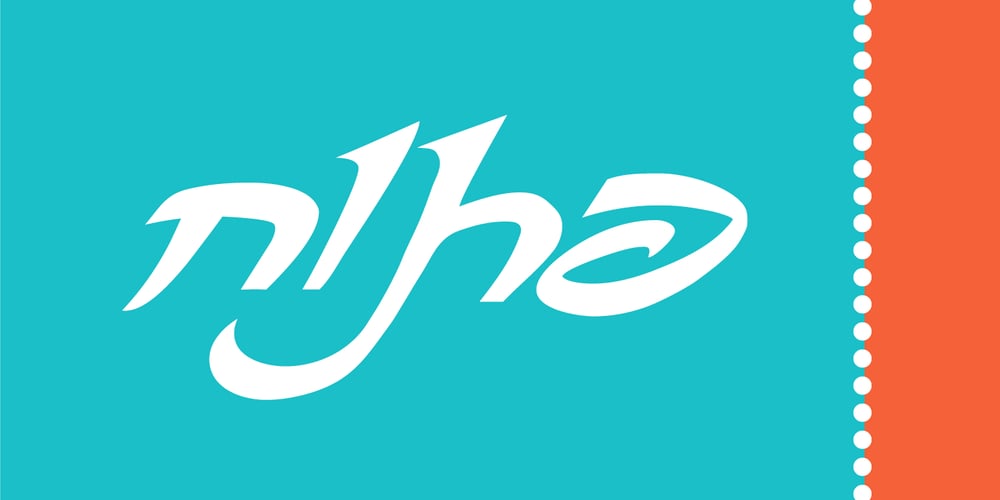
Gilo MF
Gilo MF font
Gilo MF Font Family was designed by Gad Ulman and published by Masterfont. Gilo MF contains 1 styles and family package options. Inspired by old engraving and scrolls, this font is unique by its flow and contrast, enabling traditional typeface gain a new and clear flow and rhythm.